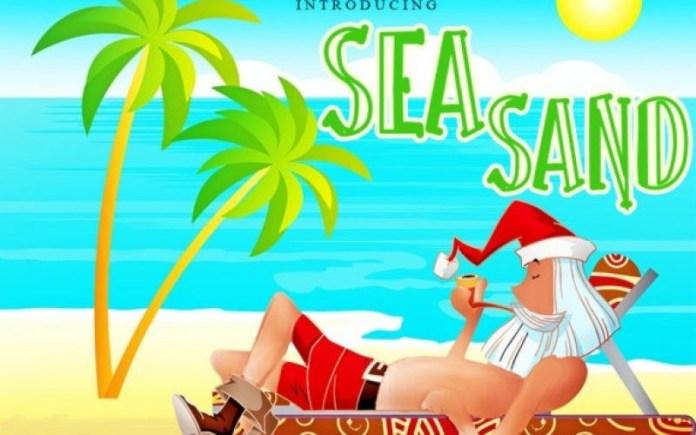
Sea Sand Font is a casual and bold display font. Sea Sand is perfect for branding projects, logo, wedding designs, social media posts, advertisements, product packaging, T-shirt design, product designs, label, photography, watermark, invitation, stationery, and any projects. Neat and simple lettered, this font is the perfect choice for each of your creative designs!